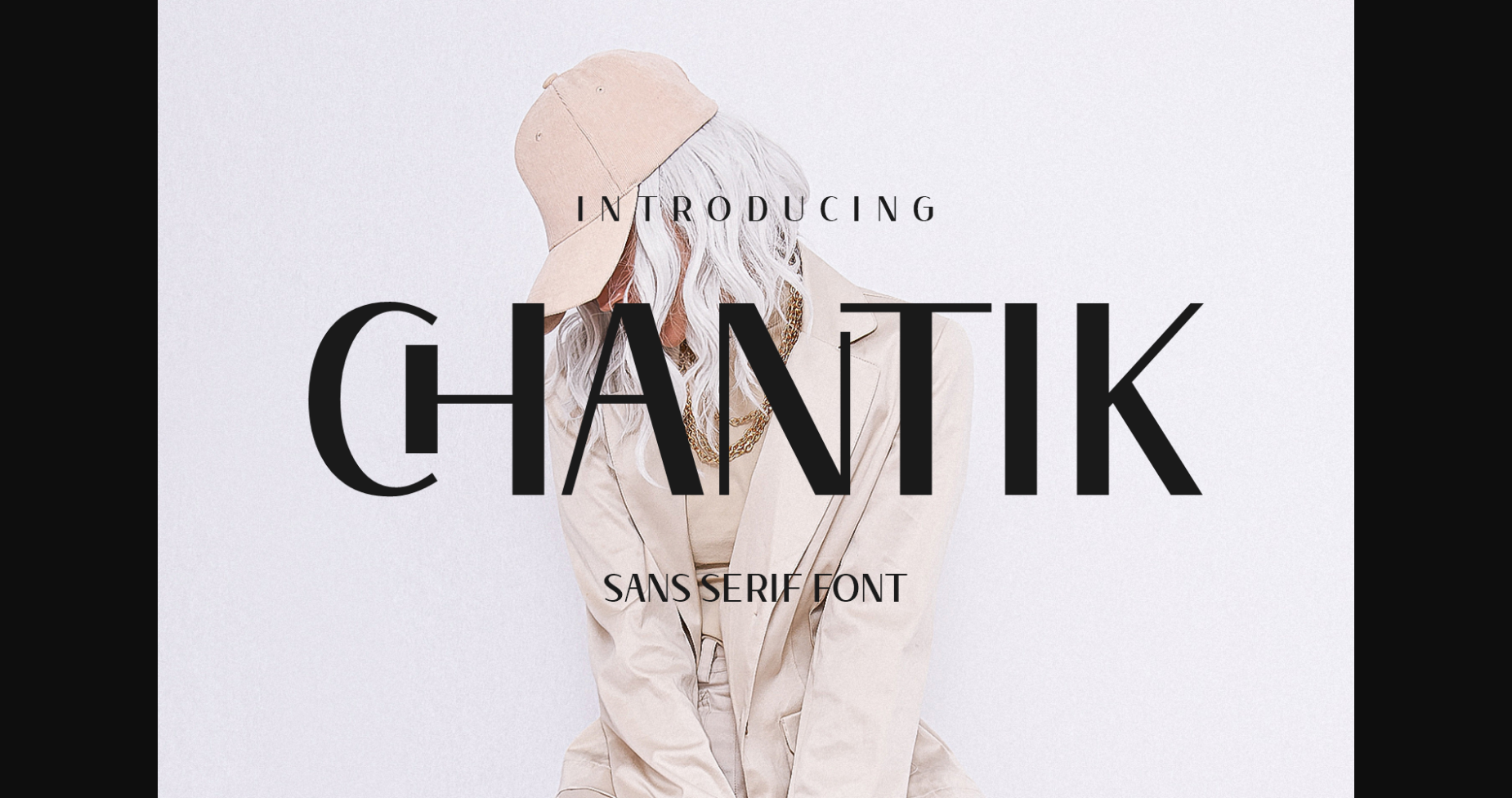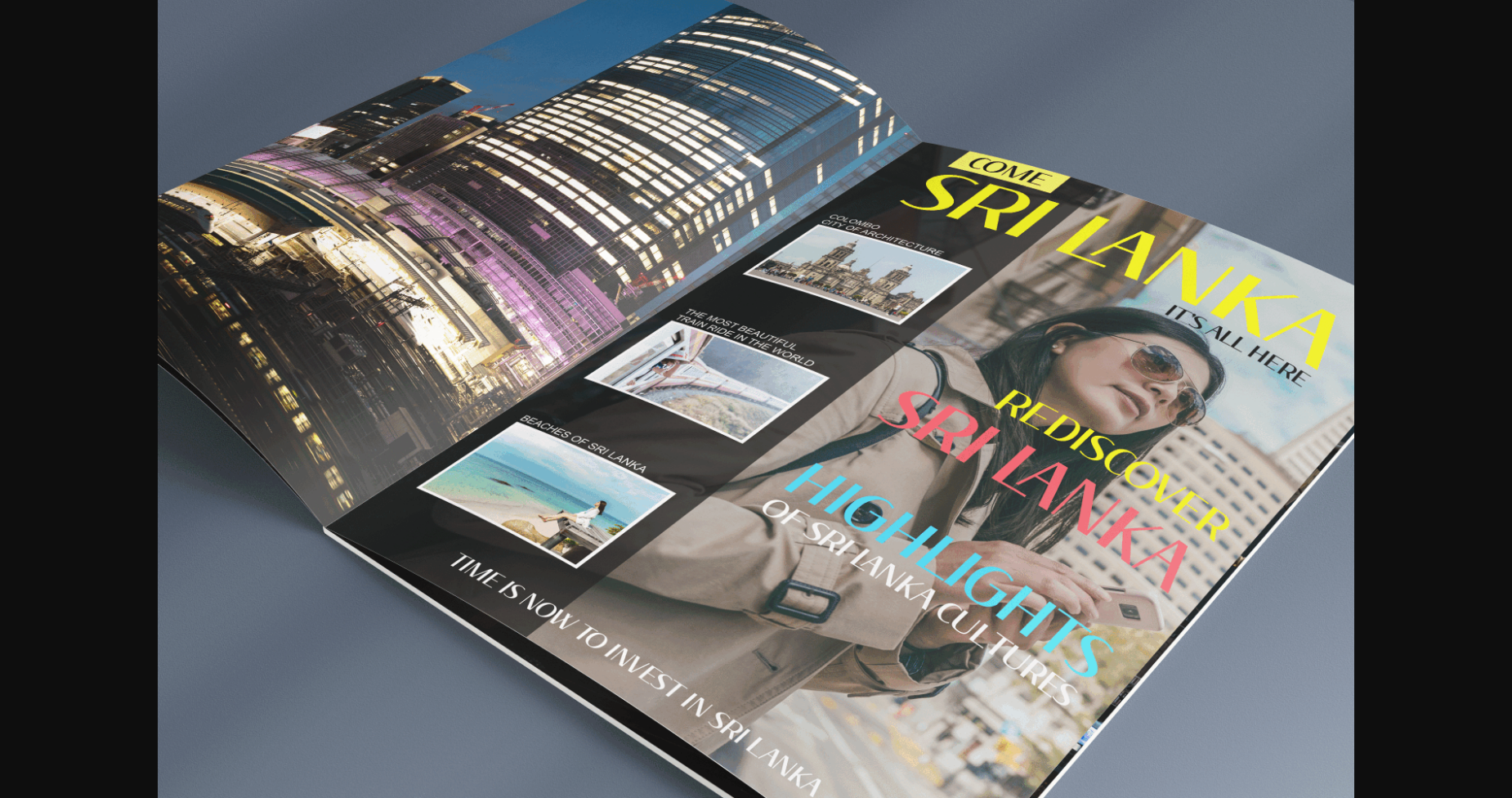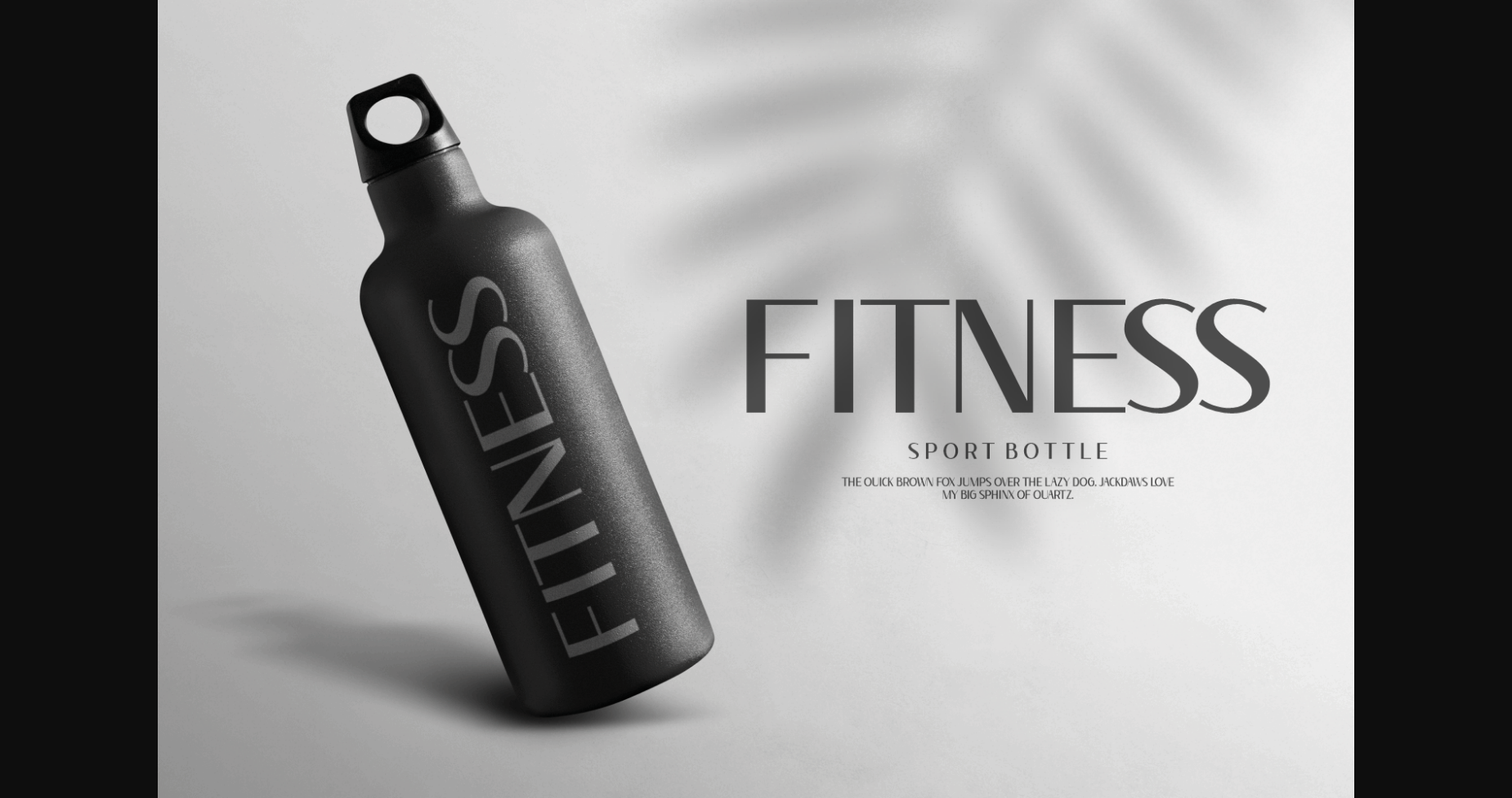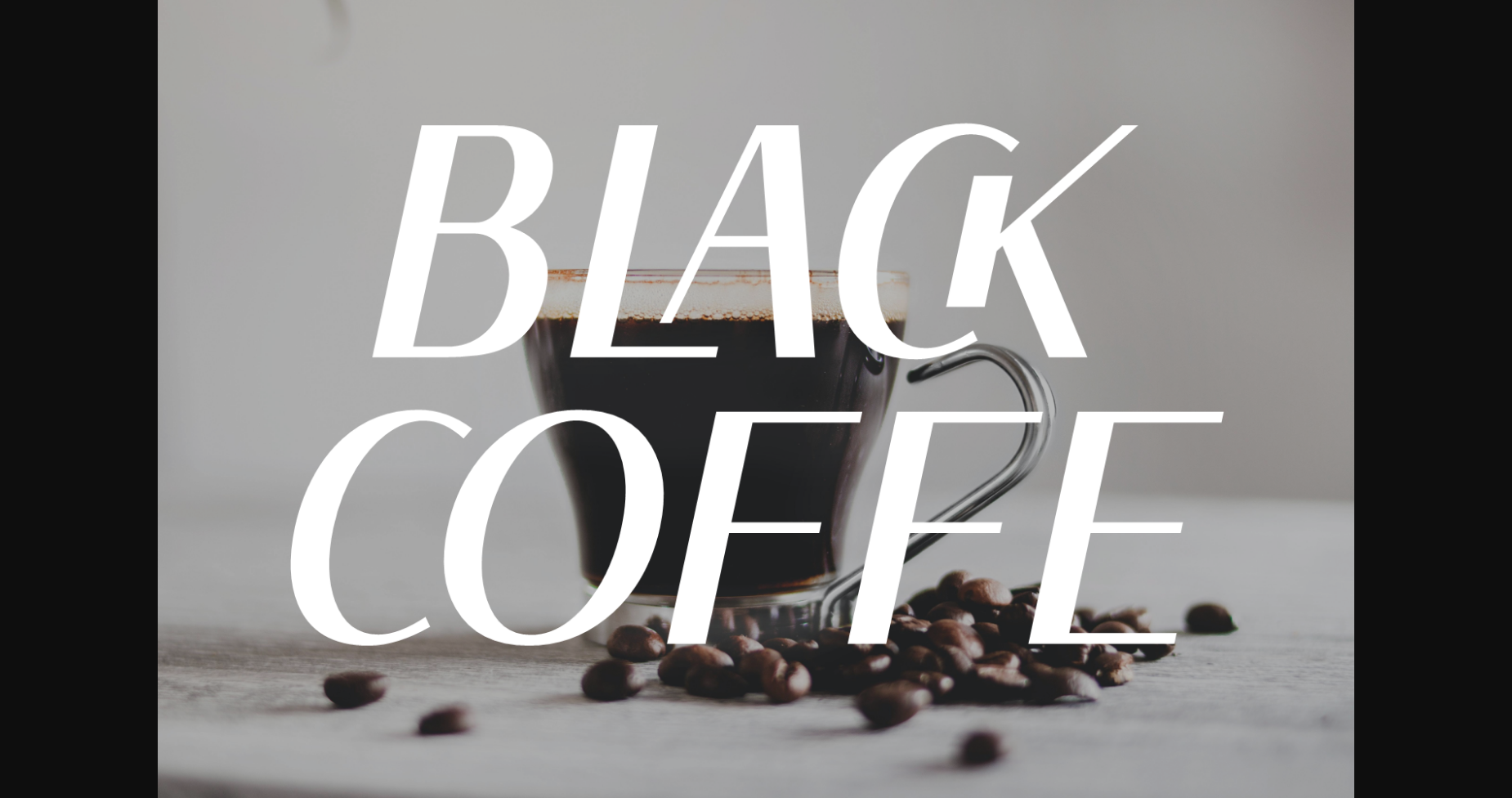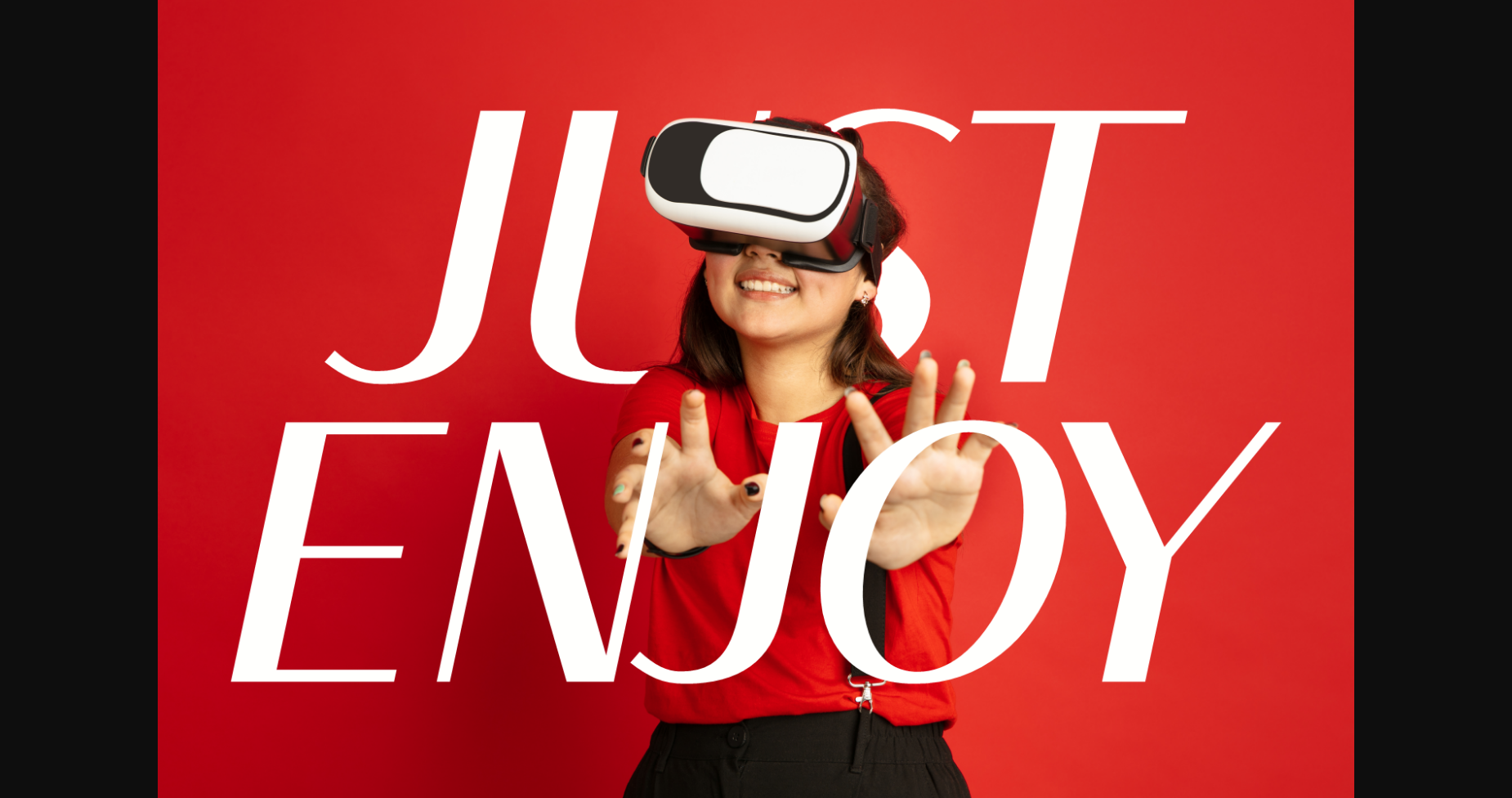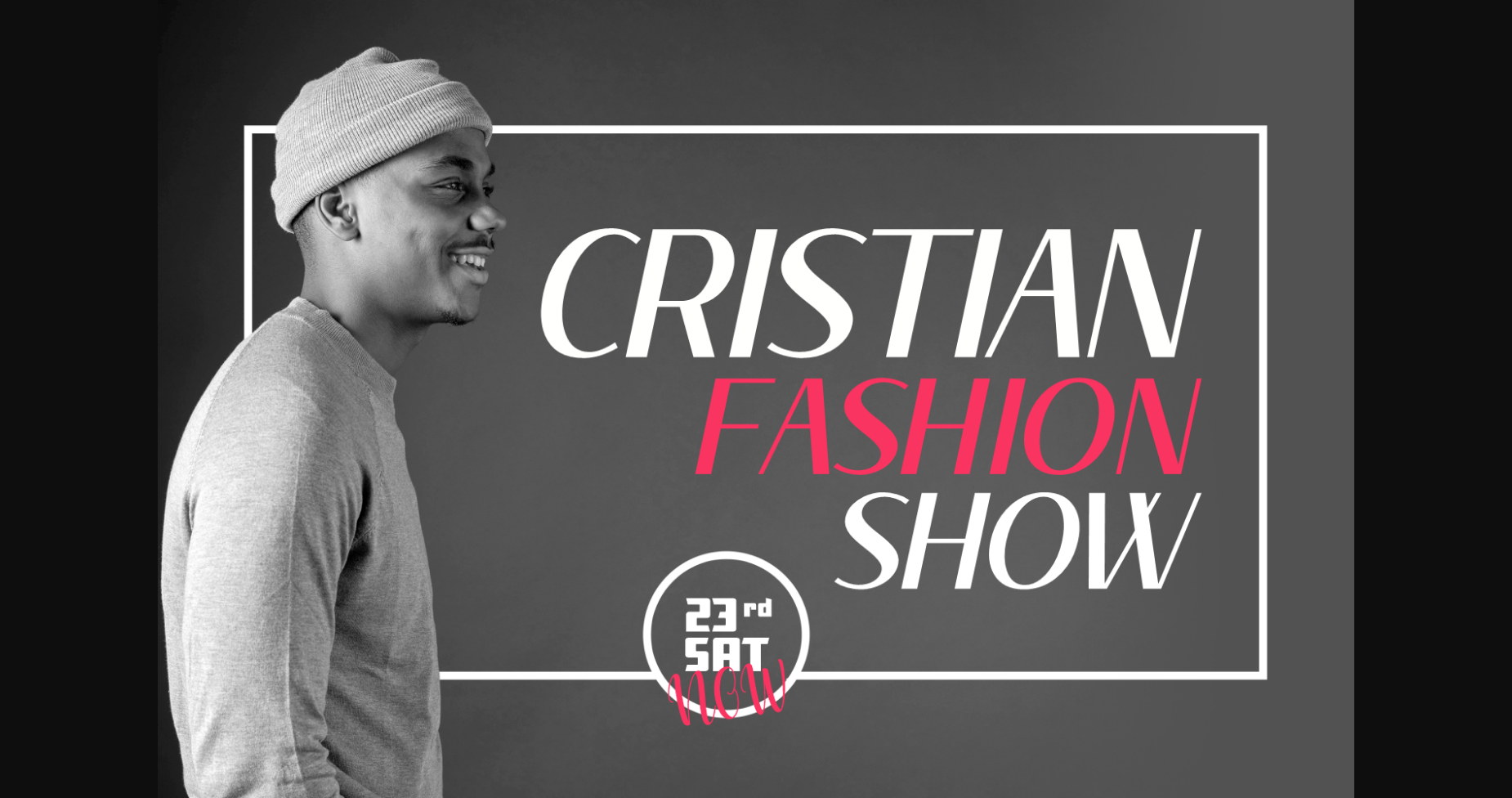
Chantik Font
About Chantik Font
Chantik is a stylish sans serif font that features clean lines and elegant curves. With a modern and fashionable look, this font is perfect for various design projects such as branding, logos, headers, and more. Chantik’s versatility and legibility make it an excellent choice for both print and digital media.